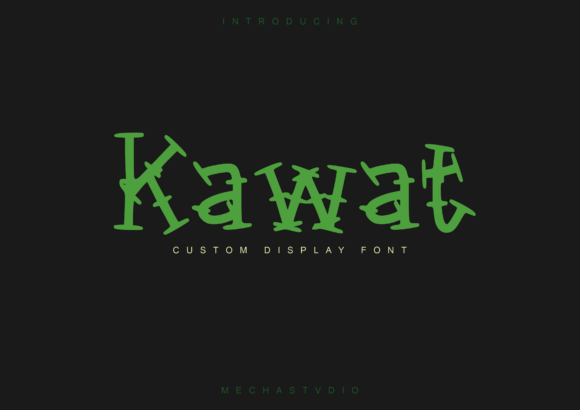
Behold Kawat Font, an exquisite creation by MechaStudio, a font of remarkable wisdom, coolness, and unmatched individuality. It's a display font that will enchant your designs, adding a touch of sophistication and uniqueness to your logos, branding, stationery, posters, social media posts, and more.
Immerse yourself in the world of Kawat Font. Its bold and assertive strokes command attention, while its intricate details hint at a hidden depth that will captivate your audience. This font is not just a collection of letters; it's an expression of art, a visual symphony that dances across your designs, leaving an indelible mark on your creations.
Kawat Font is a versatile chameleon, effortlessly adapting to a myriad of design styles. Its inherent charm shines through whether you're crafting a sleek and modern logo, a timeless and elegant poster, or a vibrant and engaging social media post. Its versatility extends beyond aesthetics; it's also a font of remarkable legibility, ensuring your messages are conveyed with clarity and impact, even at the smallest of sizes.
Unleash your creativity, let your imagination soar, and witness the transformation as Kawat Font elevates your designs to new heights of brilliance. It's the font that will set your work apart, making a statement that resonates with your audience. Join the legions of satisfied designers who have discovered the magic of Kawat Font. Embrace its allure, experience its transformative power, and let your creativity flourish like never before.